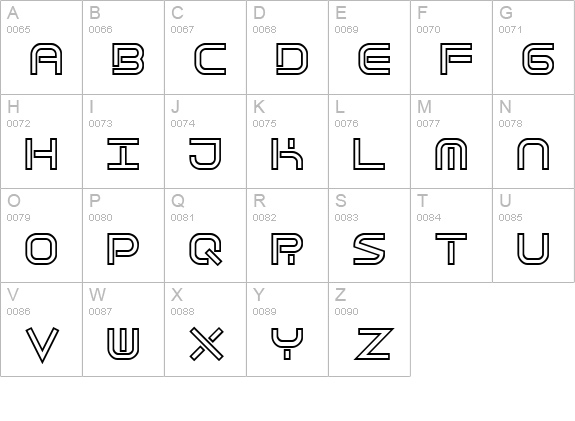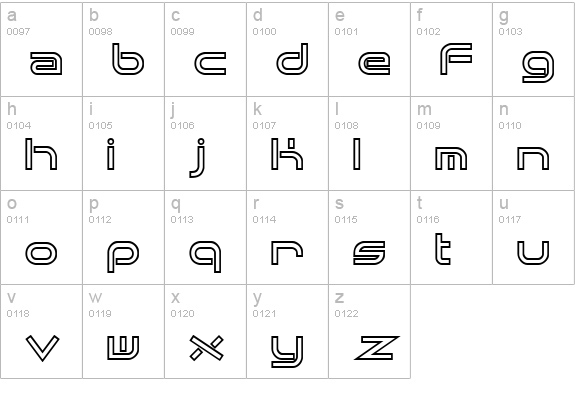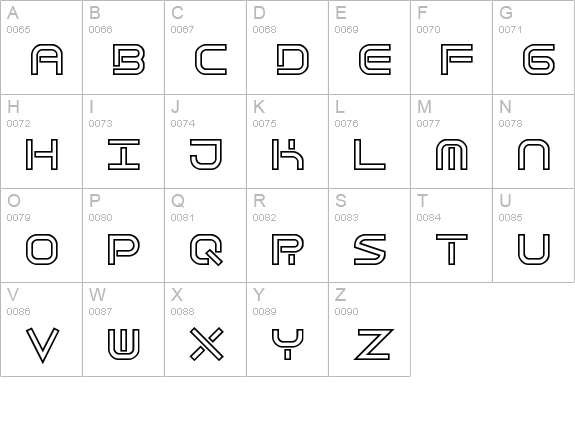
Quantum Flat Hollow (BRK) is a stunning font that effortlessly blends modernity with a touch of sophistication. Its clean and sleek lines exude a sense of elegance, making it perfect for a wide range of design projects. This font is a true testament to the power of minimalism, as it effortlessly captures attention with its unique hollow style. The Quantum Flat Hollow (BRK) font is a versatile choice that can be used for anything from logos and branding to headlines and titles. Its bold and distinctive appearance ensures that your message will be noticed and remembered. With its high legibility and eye-catching design, this font is sure to make a lasting impression on your audience. One of the best things about Quantum Flat Hollow (BRK) is that it is freely available to download at FontsMarket.com. This means that you can easily access this amazing font and incorporate it into your projects without any hassle. Whether you are a professional designer or someone looking to add a touch of creativity to their personal projects, this font is a must-have. In addition to its stunning design and free availability, Quantum Flat Hollow (BRK) also offers a wide range of characters and glyphs, giving you the freedom to express your creativity and bring your ideas to life. Its versatility and ease of use make it a favorite among designers and typographers alike. Don't miss out on the opportunity to enhance your designs with this exceptional font. Download Quantum Flat Hollow (BRK) for free at FontsMarket.com and take your projects to the next level.